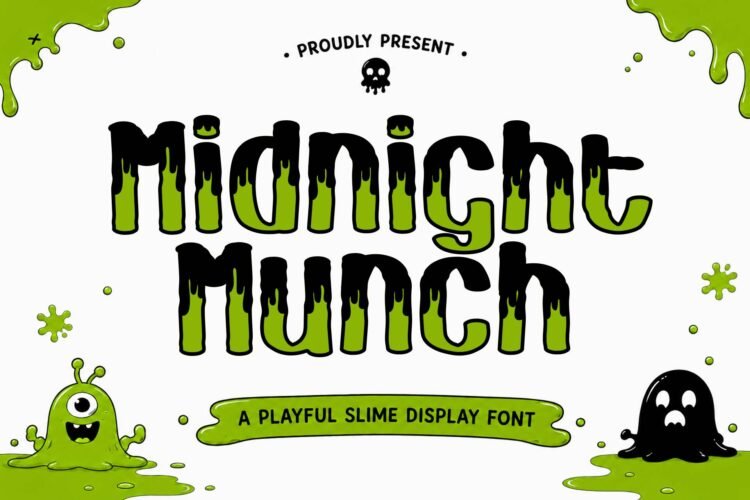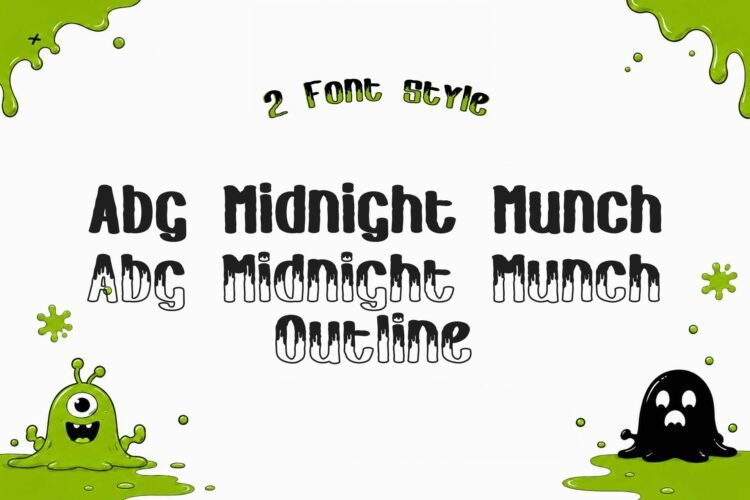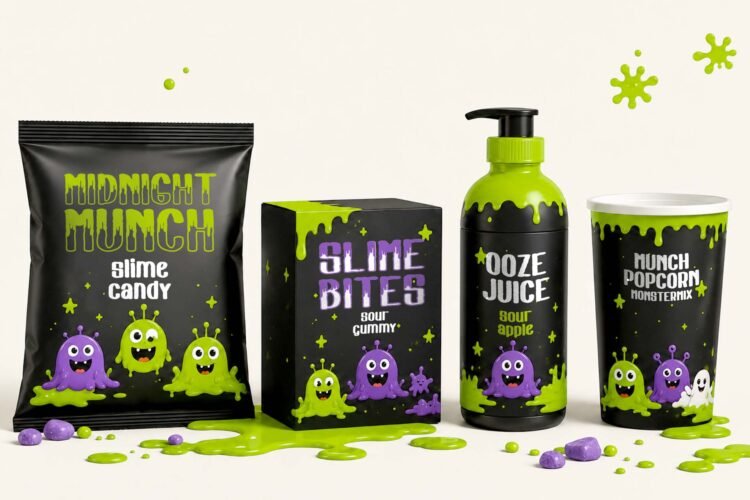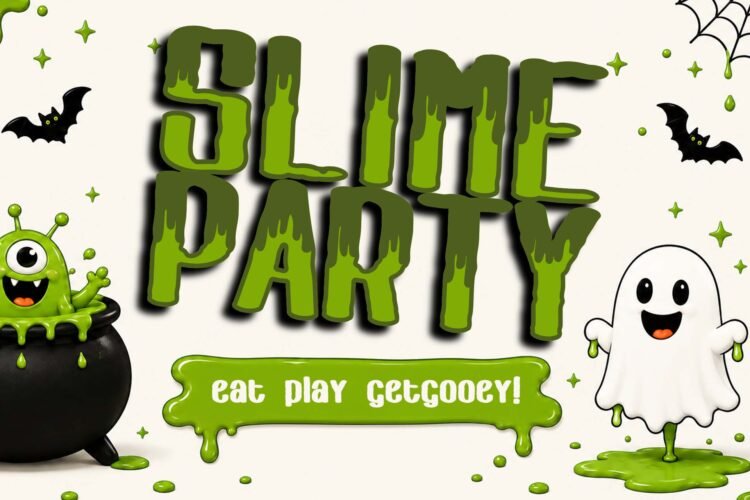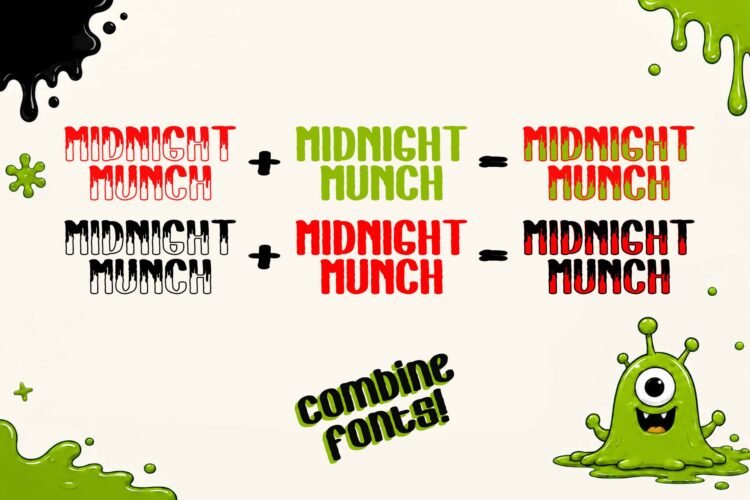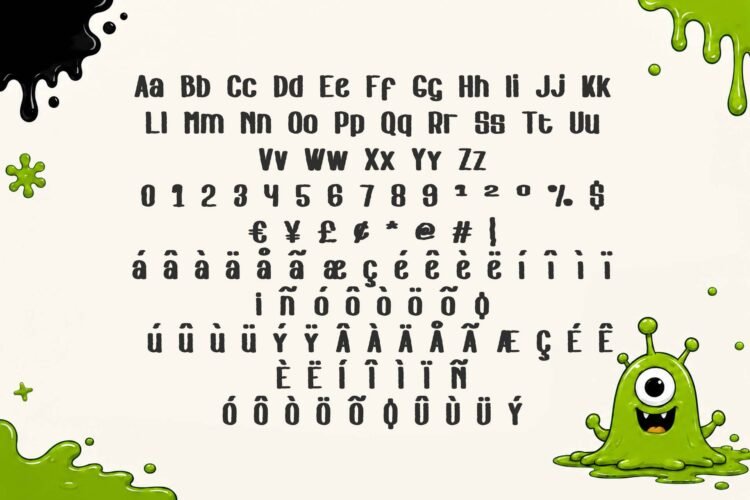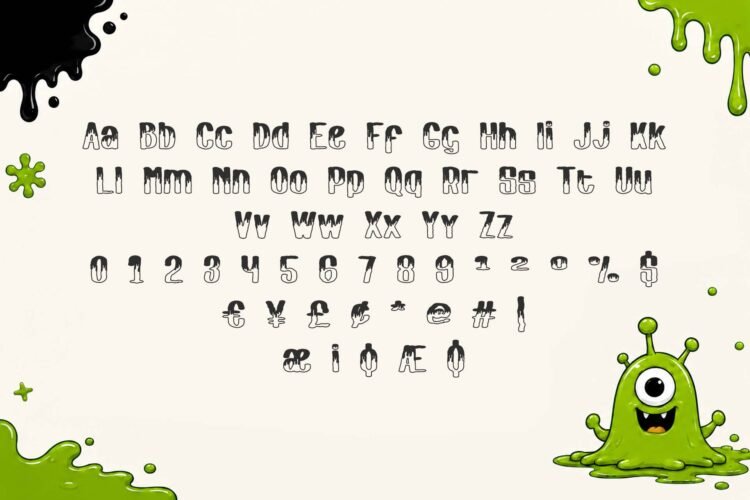
Midnight Munch is a bold condensed display font with a playful yet creepy personality. Its rough texture, compact proportions, and organic letterforms create a distinctive retro-horror aesthetic that feels quirky, imperfect, and full of character. The unusual shapes give headlines a strong visual presence while maintaining a fun and approachable edge.
Perfect for branding, logo design, posters, book covers, magazine layouts, packaging, social media graphics, editorial projects, game graphics, and Halloween-themed designs. Its bold condensed structure works especially well for headlines and other prominent display typography
• Standard uppercase and lowercase letters
• Numbers and basic punctuation
• Bold condensed display letterforms with a rough texture
• Several accented characters for multilingual support for Midnight Munch Regular
• Styles included: Midnight Munch Regular & Midnight Munch Outline